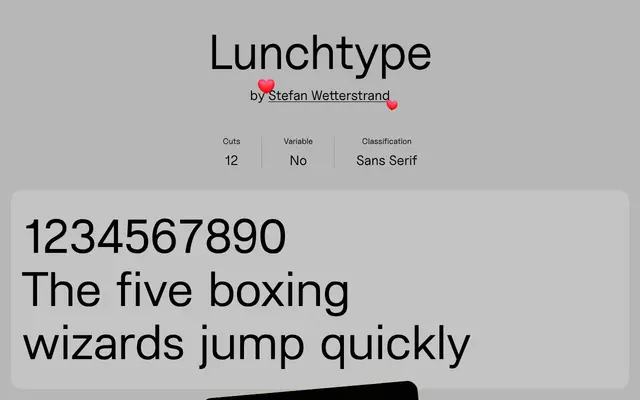
Lunchtype
A 12-cut sans-serif by Stefan Wetterstrand, released under the SIL Open Font Licence for free commercial use.
Lunchtype comes in 12 cuts and is available without cost for both personal and commercial projects. Designed by Stefan Wetterstrand, it sits within the grotesque sans-serif tradition and carries an open licence that permits modification and redistribution with some conditions. The breadth of cuts makes it a practical choice for projects needing weight variety on a zero budget.
Listed under Sans Serif on the Uncut directory; the name and styling suggest a straightforward grotesque cut.